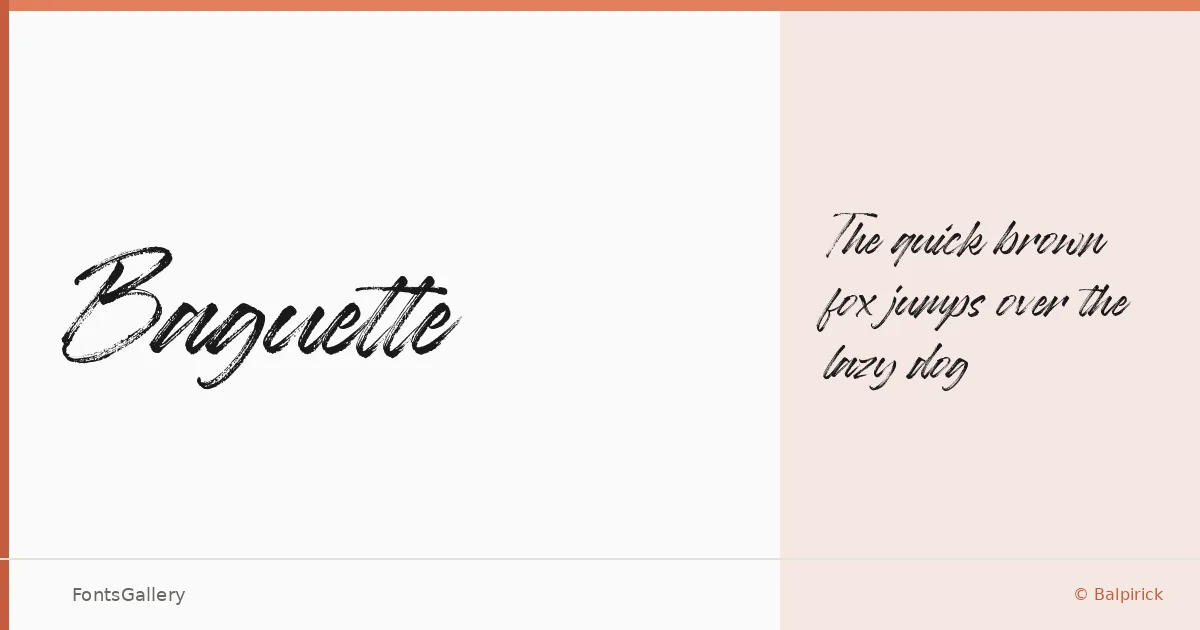
About Baguette Font
There is a particular softness to the way this script moves — the strokes lean with a practiced hand, the joins feel unhurried, and the overall impression is one of handwritten ceremony. Baguette is a single-weight script designed by Balpirick, released as a demo version, and it carries a classic, romantic character that suits occasions where formality meets warmth.
The family arrives as a single Regular cut in TTF format, which keeps the proposition simple: one carefully considered weight built for elegance rather than range. The script sits squarely in vintage territory — think the kind of lettering that belongs on a wedding envelope or an invitation suite — and its Latin coverage means the forms are optimized for that specific ceremonial register rather than stretched across unfamiliar territory. In use, the rhythm is consistent enough to work at display sizes without feeling mechanical.
The natural home for this script is anywhere the tone is celebratory and considered: wedding stationery, greeting cards, branding identities with a romantic edge, and logo work that calls for a handcrafted feeling. It pairs well alongside cooler, more structural faces — Helvetica or Abrade for clean contrast, Canela or ABC Arizona when you want something warmer in the body copy, and Anglecia Pro when a more editorial serif feels right alongside it.